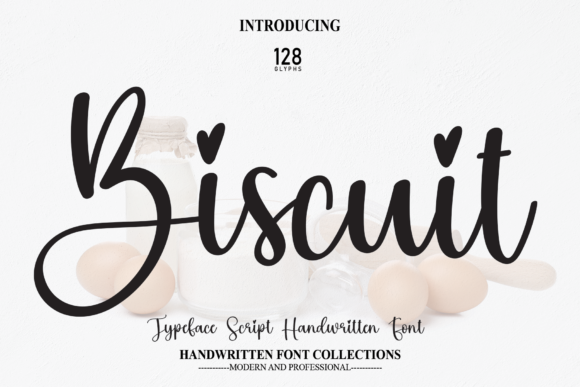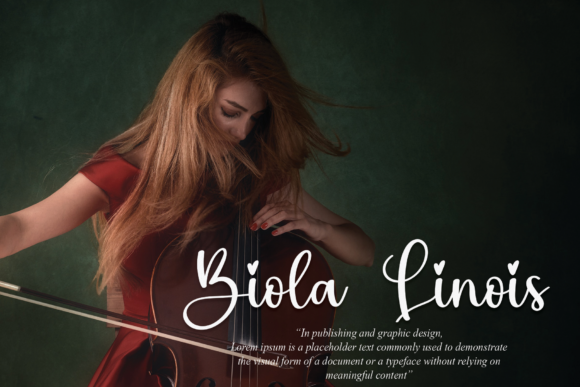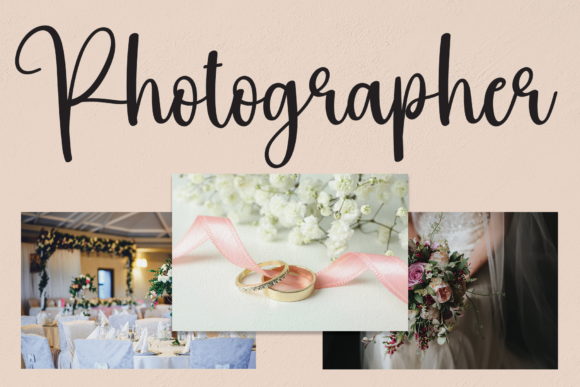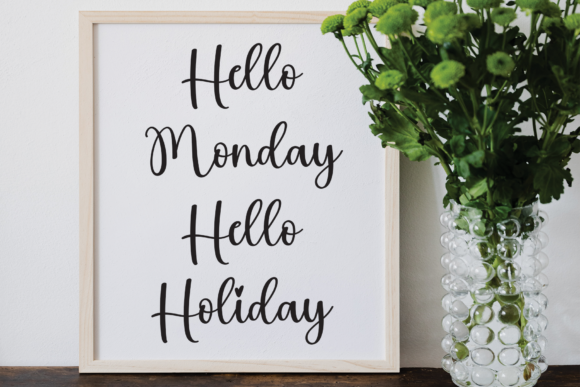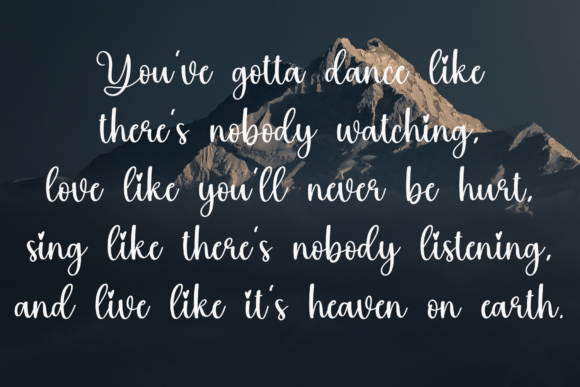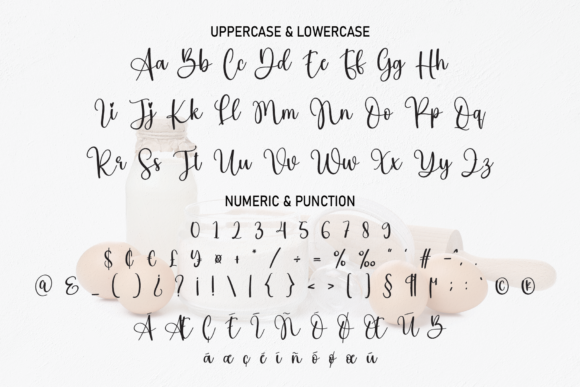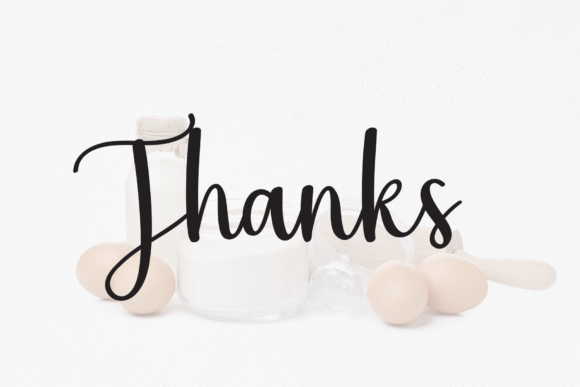
Biscuit Font
Biscuit is a delicate, elegant and flowing handwritten font. It has beautiful and well balanced characters and as a result, it matches a wide pool of designs. Add it to your most creative ideas and notice how it makes them come alive!